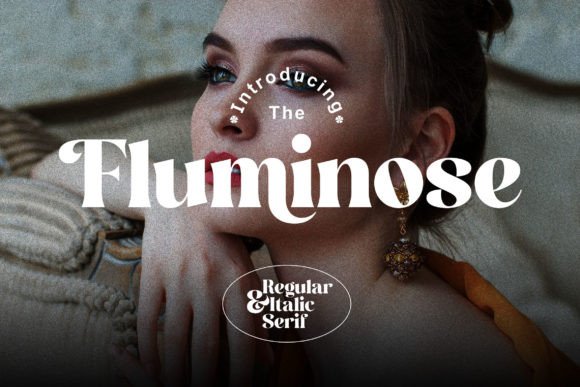
Introducing Fluminose, a serif font that exudes grandeur and sophistication, designed to transform your documents into captivating masterpieces. Its bold strokes and elegant curves create an aura of authority, while its precise details ensure clarity and legibility. Experience the allure of Fluminose – the ultimate choice for those seeking a font that commands attention.
With Fluminose as your ally, your documents will be elevated to new heights of professionalism. Imagine your words, adorned with this distinguished font, commanding the respect they deserve. Fluminose's graceful serifs add a touch of timeless elegance to any written piece, whether it's a formal letter, an academic thesis, or a business proposal.
Unlike many fonts that compromise beauty for functionality, Fluminose seamlessly blends aesthetics and efficiency. Its meticulously crafted letterforms ensure effortless readability, even in lengthy documents. The font's generous spacing prevents visual clutter, allowing your content to breathe and shine.
As a PUA-encoded font, Fluminose grants you effortless access to a treasure trove of glyphs and swashes, empowering you to unleash your creativity. Experiment with a wide range of embellishments and flourishes to add a touch of individuality to your work. Let your imagination soar as you craft documents that are both visually stunning and engaging.
Fluminose's versatile nature makes it a perfect fit for a multitude of projects. Whether you're composing legal documents, designing brochures, or crafting marketing materials, this font effortlessly adapts to your vision. Its inherent charm elevates any type of written content, transforming ordinary words into compelling narratives.
Embrace the allure of Fluminose today and open the door to a world of refined typography. Its bold personality paired with meticulous attention to detail will leave an unforgettable impression on your readers. Let Fluminose be your secret weapon to create documents that captivate, inspire, and leave a lasting legacy of excellence.